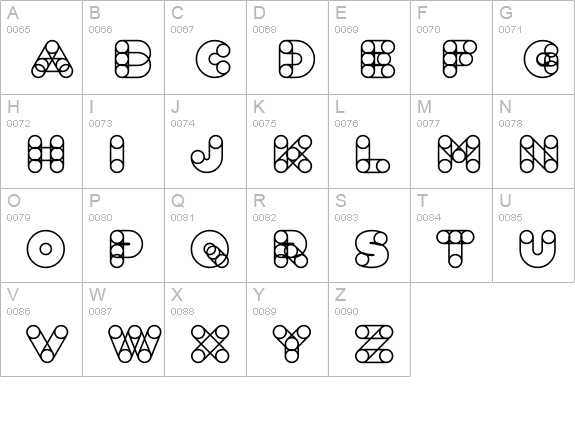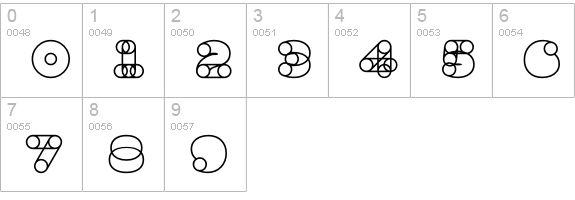
Fun City Level 5 Frame Font Details
Fun City Level 5 Frame font is a playful and eye-catching display typeface that is perfect for adding a fun and energetic touch to your designs. With its unique frame design, this font is sure to stand out and grab attention. The bold and whimsical characters make it ideal for headlines, titles, posters, and other creative projects. What's even better is that Fun City Level 5 Frame font is available for free download at FontsMarket.com. You can easily add this fun and stylish font to your collection without any cost. So go ahead and give your designs a fresh and playful look with Fun City Level 5 Frame font!